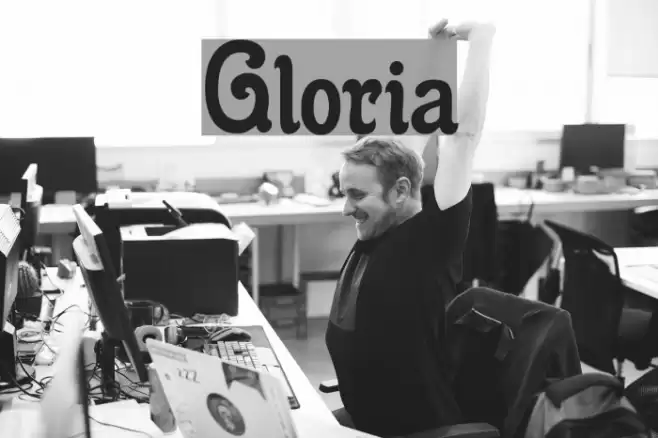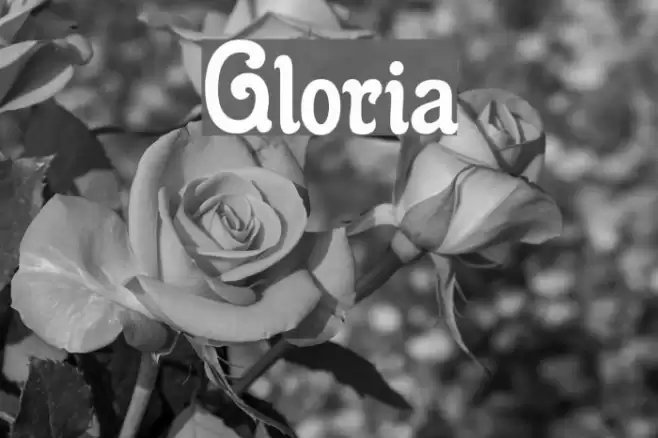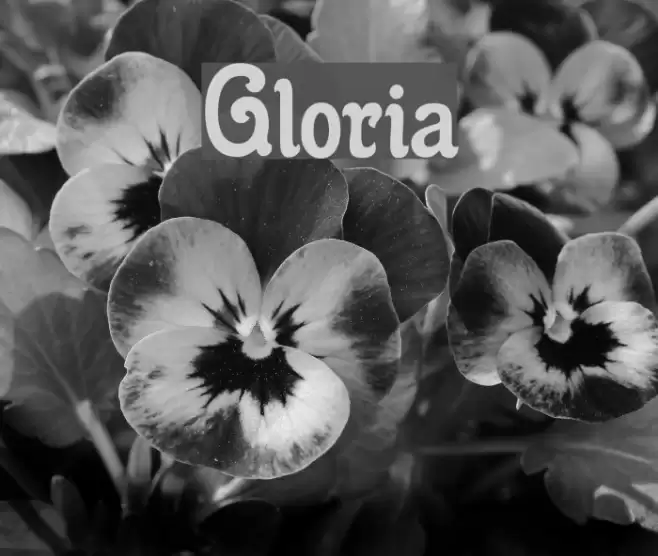
Gloria Font
Gloria Description
This font features a playful and decorative style with bold, rounded characters that have a whimsical flair. The uppercase letters are characterized by their ornate loops and curls, giving them a lively and dynamic appearance. The lowercase letters maintain a consistent style, with smooth curves and a slightly condensed form. The numerals are bold and easily legible, matching the overall playful aesthetic. Special characters are designed with the same decorative elements, ensuring a cohesive look across all glyphs. This font's unique style makes it stand out, perfect for projects that require a touch of creativity and fun.
A playful, decorative font with bold, rounded characters and whimsical flair from Uncategorized fonts.
- Proposed Projects: Ideal for children's books, playful branding, party invitations, and creative posters.
- Width: Condensed
- Use Case: Logos, Headlines, Posters